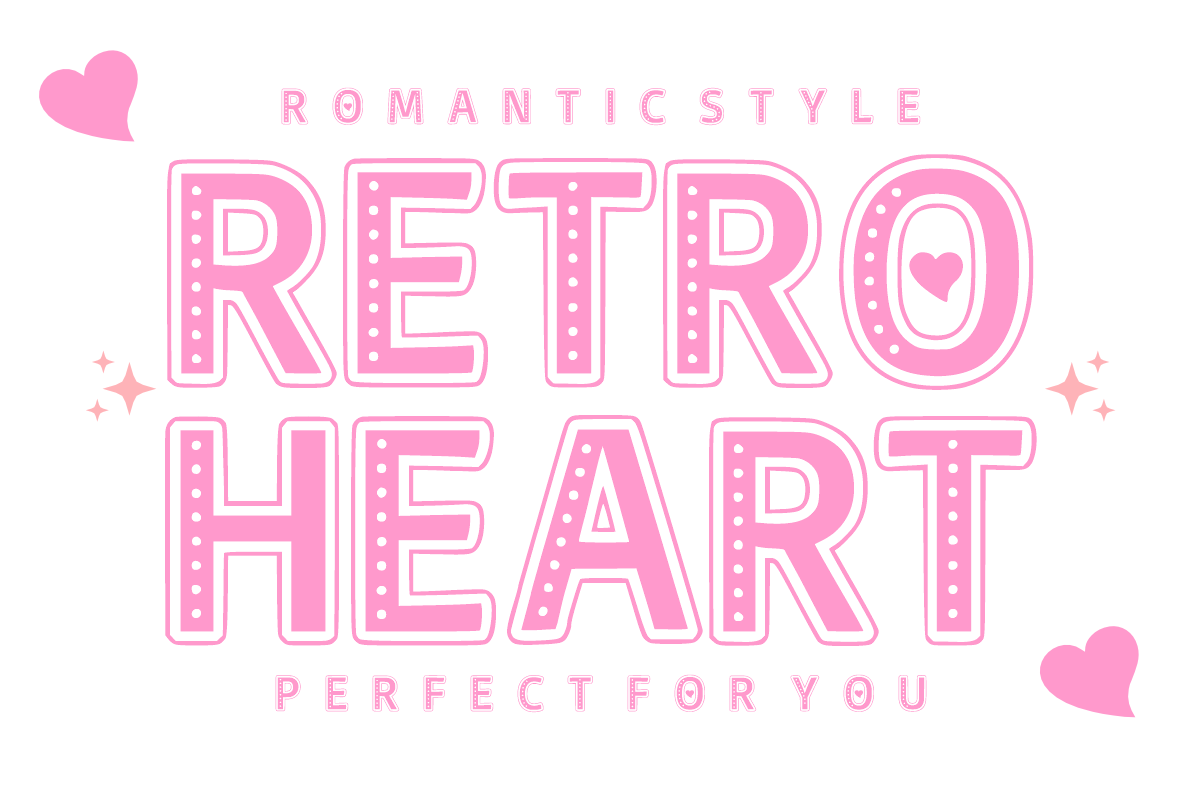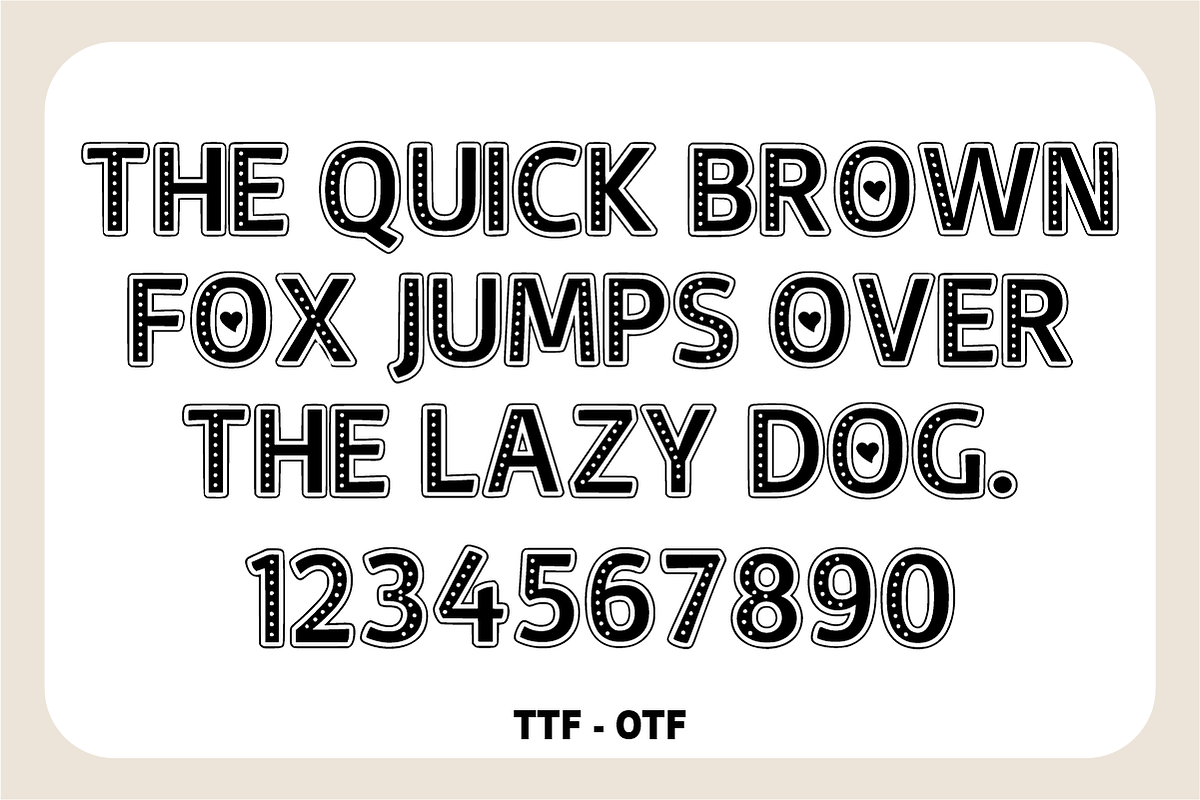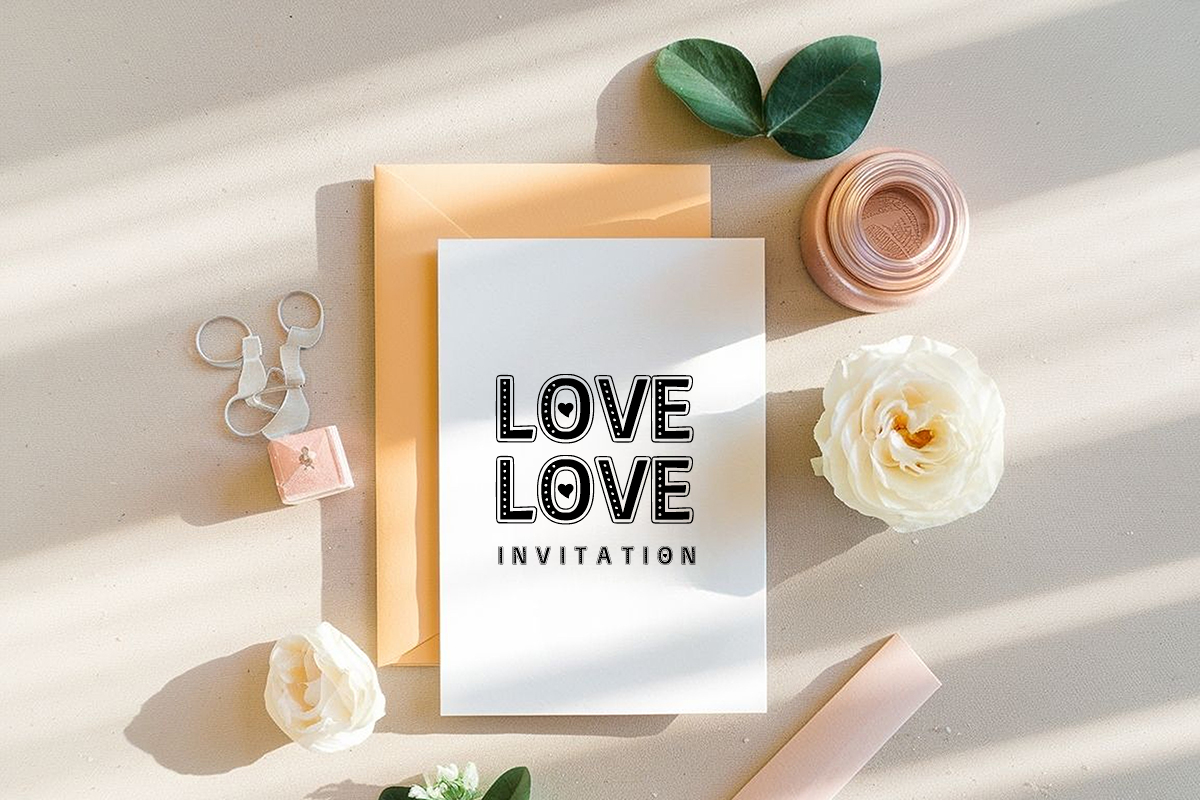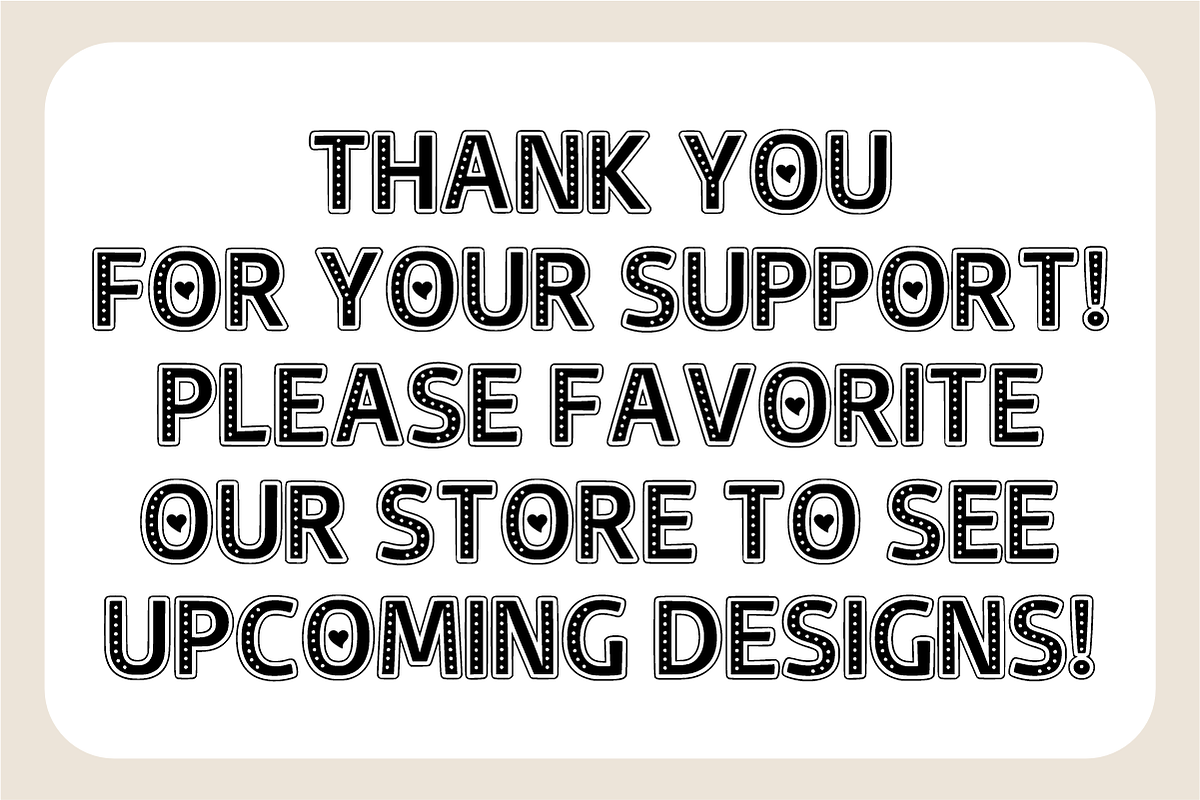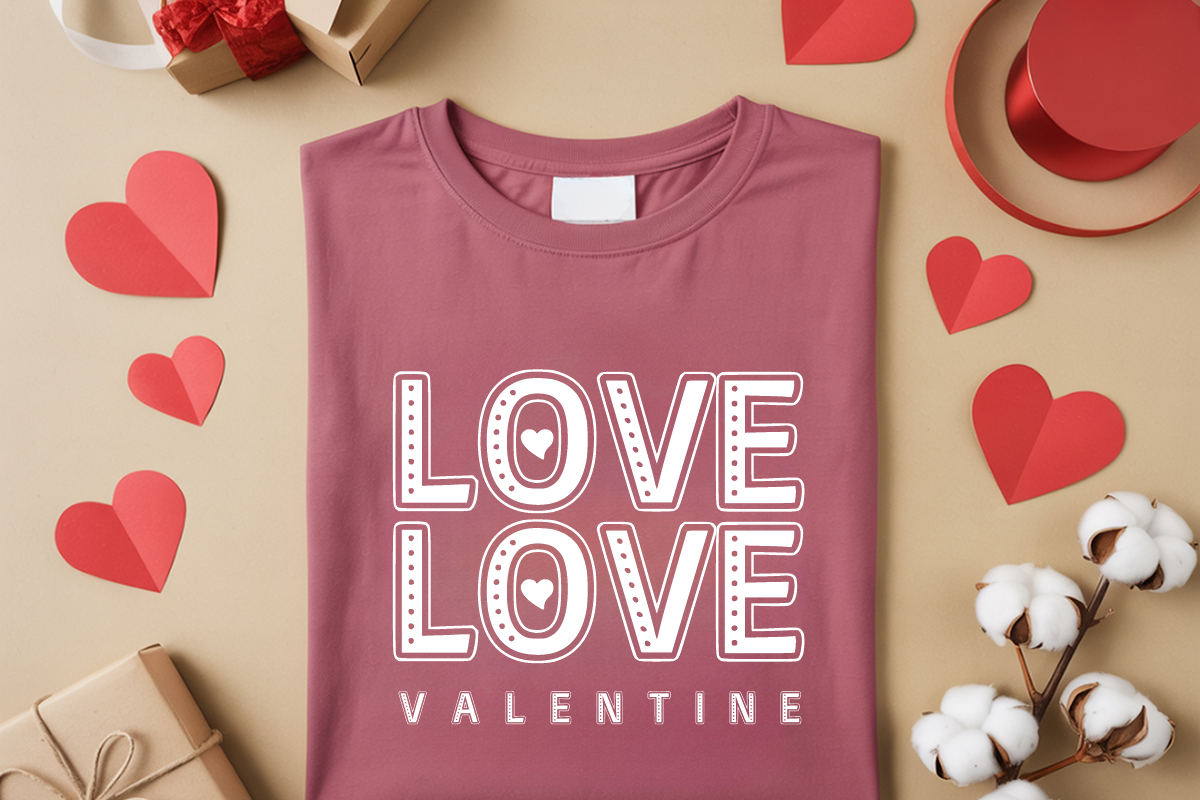
Retro Heart - Display Font
Retro Heart – Bold & Romantic Varsity Display Font ✨💖
Classic Collegiate Style Meets Sweet Romantic Vibes!
Retro Heart is a bold, high-impact display font that perfectly blends the nostalgic look of varsity sports with a charming romantic twist. Featuring thick, blocky letterforms adorned with delicate heart details and a stylish outline, this font is designed to stand out. It’s the ultimate choice for creators looking to add personality, warmth, and a vintage aesthetic to their designs.
Unique Heart Detailing: Each uppercase letter contains subtle heart patterns, making it instantly recognizable and perfect for "love" themed projects.
Bold & Impactful: The chunky slab-serif structure ensures your headlines are legible and command attention from a distance.
Versatile Retro Aesthetic: Whether you're going for a 70s vintage vibe or a modern collegiate look, this font adapts beautifully to your creative vision.
💖 Valentine’s Day & Weddings: Custom invitations, romantic greeting cards, and event signage.
👕 Apparel & Merch: Trendy varsity-style t-shirts, hoodies, tote bags, and "couple" outfits.
📱 Social Media & Branding: Eye-catching Instagram quotes, Pinterest graphics, and playful logo designs.
🖍️ Crafting & DIY: Ideal for vinyl cutting (Cricut/Silhouette), personalized stickers, and nursery wall art.
🏫 School & Sports: Fun classroom posters, team banners with a "sweet" edge, and yearbook titles.
Complete Character Set: Bold Uppercase Letters (A-Z).
Numbers & Symbols: Matching numerals (0-9) and essential simple punctuation.